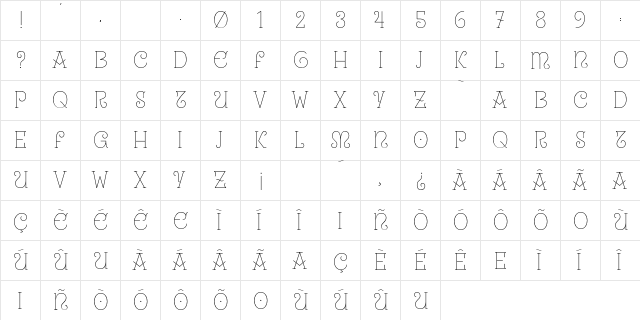
Uralita Fina
| Foundry | Rubή Prol |
| Designer | Rubή Prol |
Design Context for Uralita Typeface
Uralita is a composed and adaptable typeface that performs quietly and consistently across a wide range of design contexts.